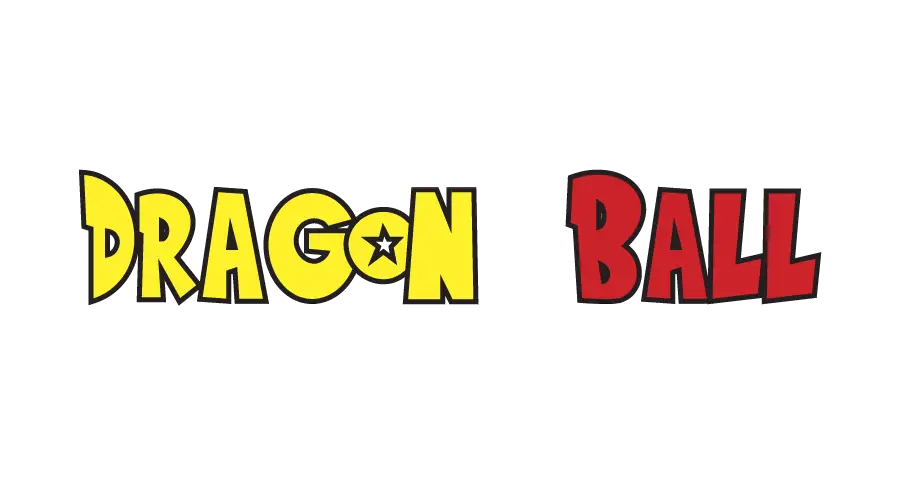
Are you interested in incorporating dragon ball font into your designs? Then you have come to the right place! Dragon Ball is one of the most popular and influential anime and manga series of all time. Created by Akira Toriyama, it follows the adventures of Son Goku, a boy with a monkey tail. He trains in martial arts and searches for the seven magical Dragon Balls that can grant any wish.
One of the most recognizable aspects of Dragon Ball is its logo, which features the title in a stylized font with a dragon wrapped around it. The logo has changed slightly over the years, but always maintained its distinctive look and feel. The logo font is not available, but a custom design created by Toriyama himself. However, there is a fan-made replica font called Saiyan Sans that mimics the original logo style. Saiyan Sans is a free font that you can download and use for personal projects.
What Is Dragon Ball?
Dragon Ball is a Japanese media franchise that consists of manga, anime, movies, games, and merchandise. Akira Toriyama created it in 1984 and has become one of the most popular and influential works of manga and anime of all time.
Dragon Ball is a franchise that combines elements of fantasy, adventure, comedy, martial arts, and science fiction. It follows the adventures of Son Goku, a monkey-tailed boy who trains in martial arts and searches for the seven mystical Dragon Balls that can grant any wish. Along his journey, he meets many friends and enemies and faces various threats to the Earth and the universe. These threats include evil emperors, androids, aliens, and demons. He also participates in martial arts tournaments to test his skills and improve himself. Dragon Ball is a long-running and influential series that has spawned many adaptations, spin-offs, sequels, and merchandise. It is widely praised for its humor, art, characters, and action scenes.
The franchise is divided into several sagas, each with its own story arc, villains, and themes. The franchise is also known for its colorful and diverse characters, its epic battles and transformations, its humor and parodies, its references to various cultures and myths, and its messages of friendship, courage, and peace.
Dragon Ball Font
Saiyan Sans Font Characteristics
Saiyan Sans is a fan-made font that replicates the anime and manga series Dragon Ball logo. It was created by Ben Palmer, a graphic designer and web developer, and released in 2006. The font is inspired by the name of the alien race that the main character of Dragon Ball, Son Goku, belongs to: the Saiyans.
Saiyan Sans is a fancy and varied font with a futuristic and sci-fi look. It has three variants: regular, left oblique, and right oblique. The font only supports uppercase letters, numbers, and punctuation marks. It has 56 glyphs in total. The font is suitable for personal and non-commercial projects that relate to Dragon Ball or its fandom.
Where to Use The Font
Saiyan Sans Font is perfect for any project related to the Dragon Ball theme. Such as fan art, merchandise, posters, banners, and more. It’s a great choice for designing logos, posters, or merchandise related to the Dragon Ball universe. It can also add a touch of excitement and adventure to social media posts or video game interfaces.
Dragon Ball Font Character
Similar Fonts To Dragon Ball Font
• Thunderstrike: A metallic font inspired by the Thor movie, featuring letters resembling hammers or lightning bolts.
Conclusion
Dragon Ball Font is a must-have for any Dragon Ball fan looking to incorporate the series’ iconic style into their designs. Whether you’re creating fan art or designing merchandise, this font adds a unique and decorative touch to any project. So why wait? Download the Font today and get creative!